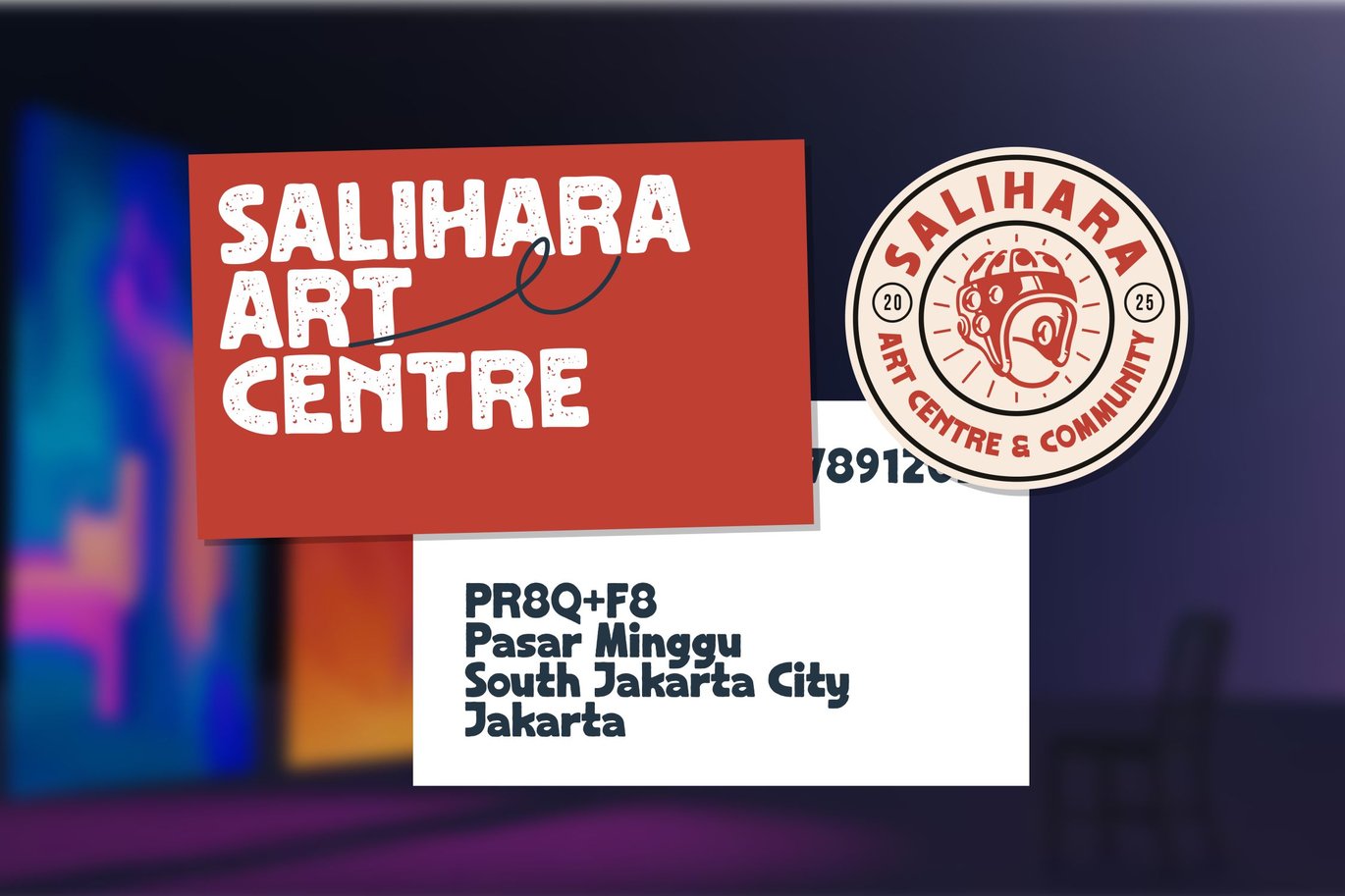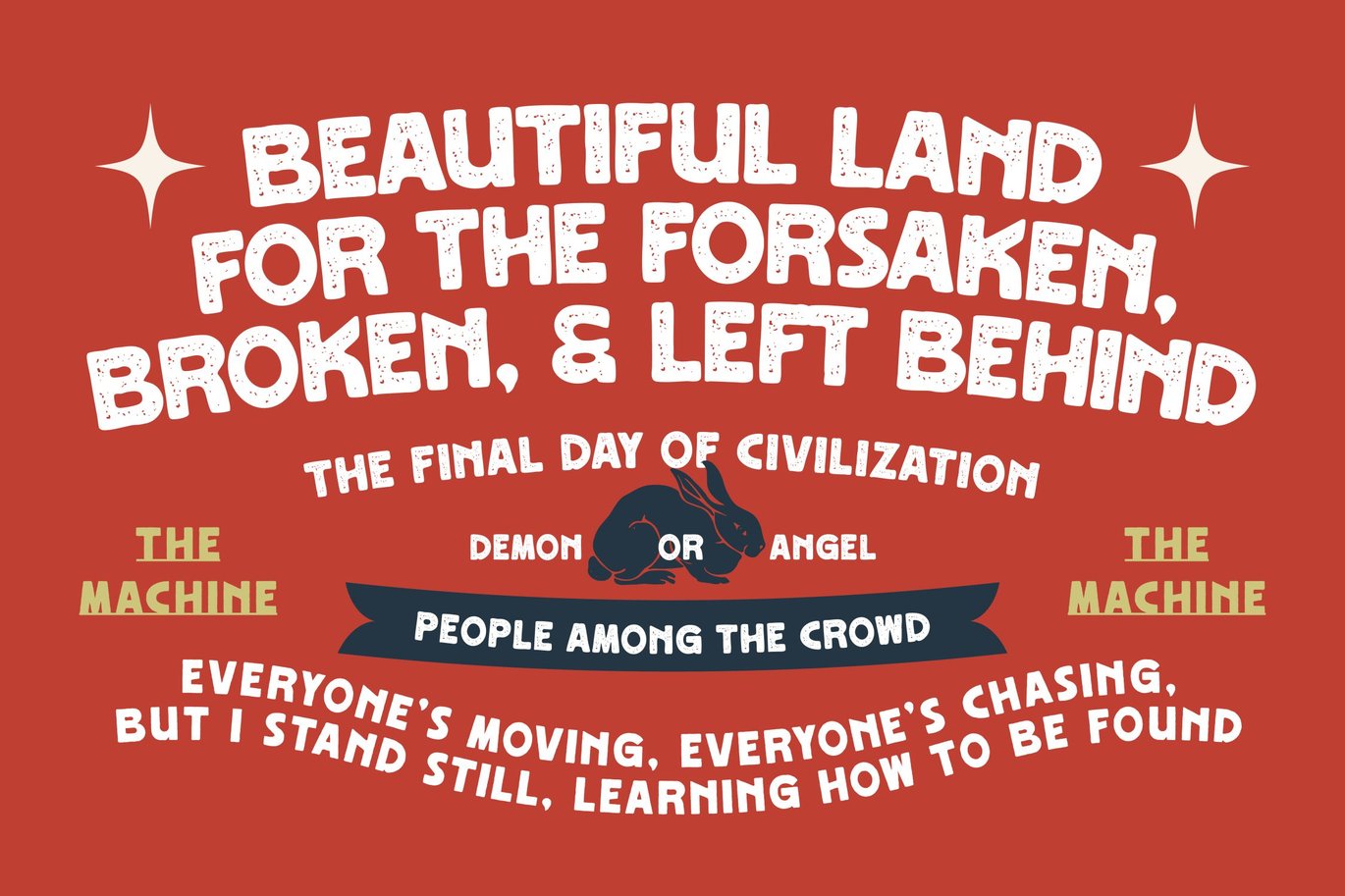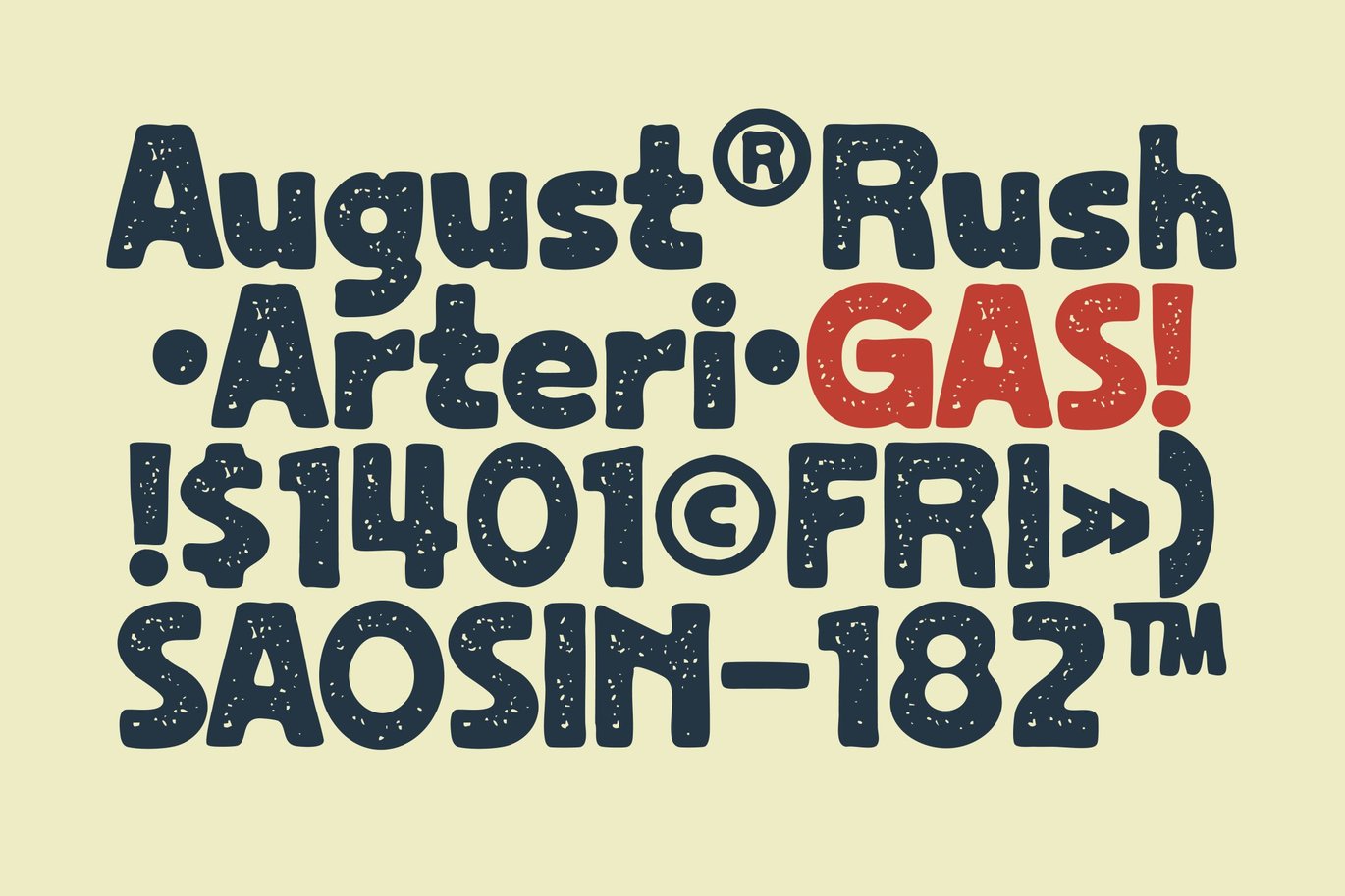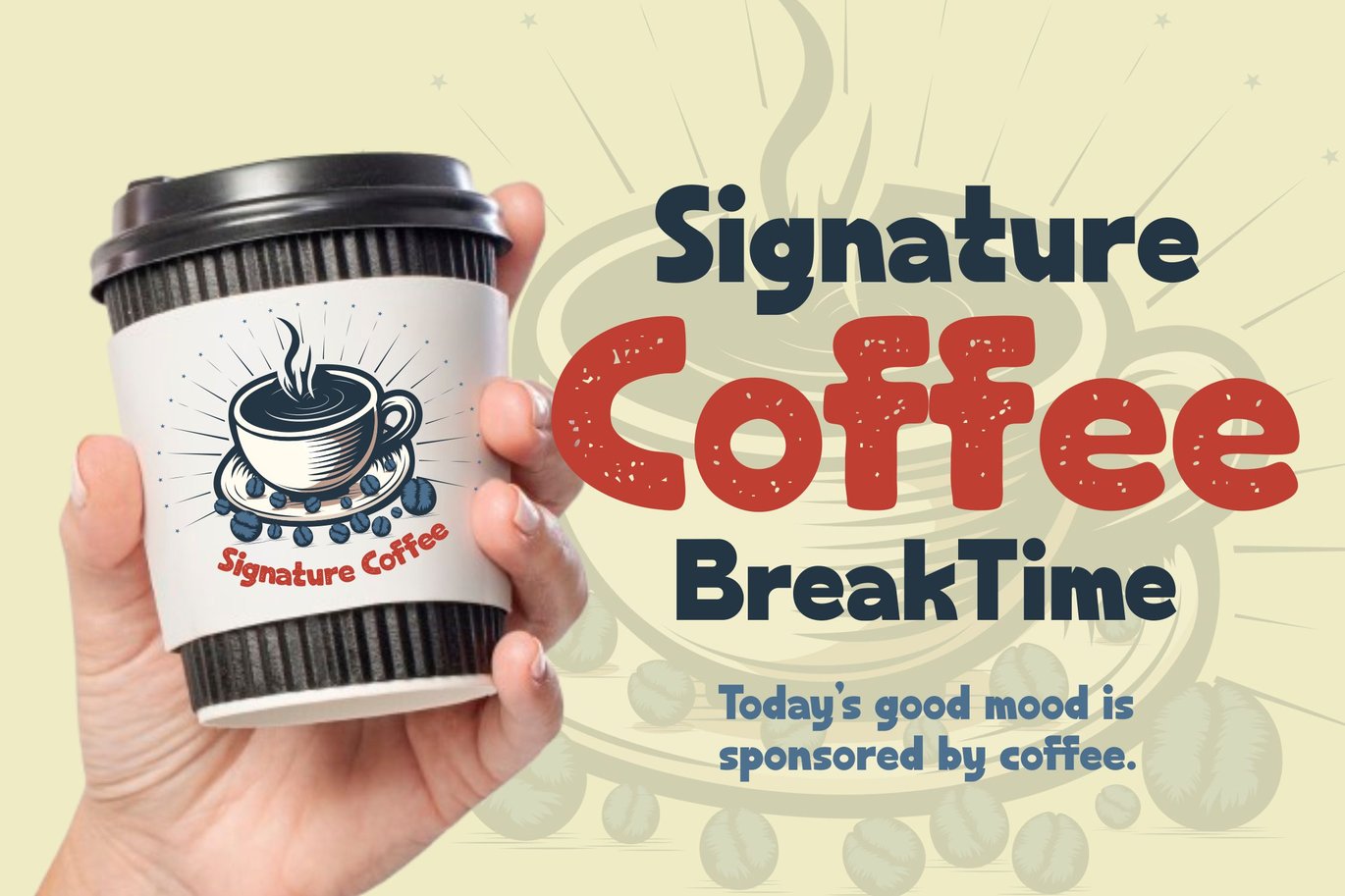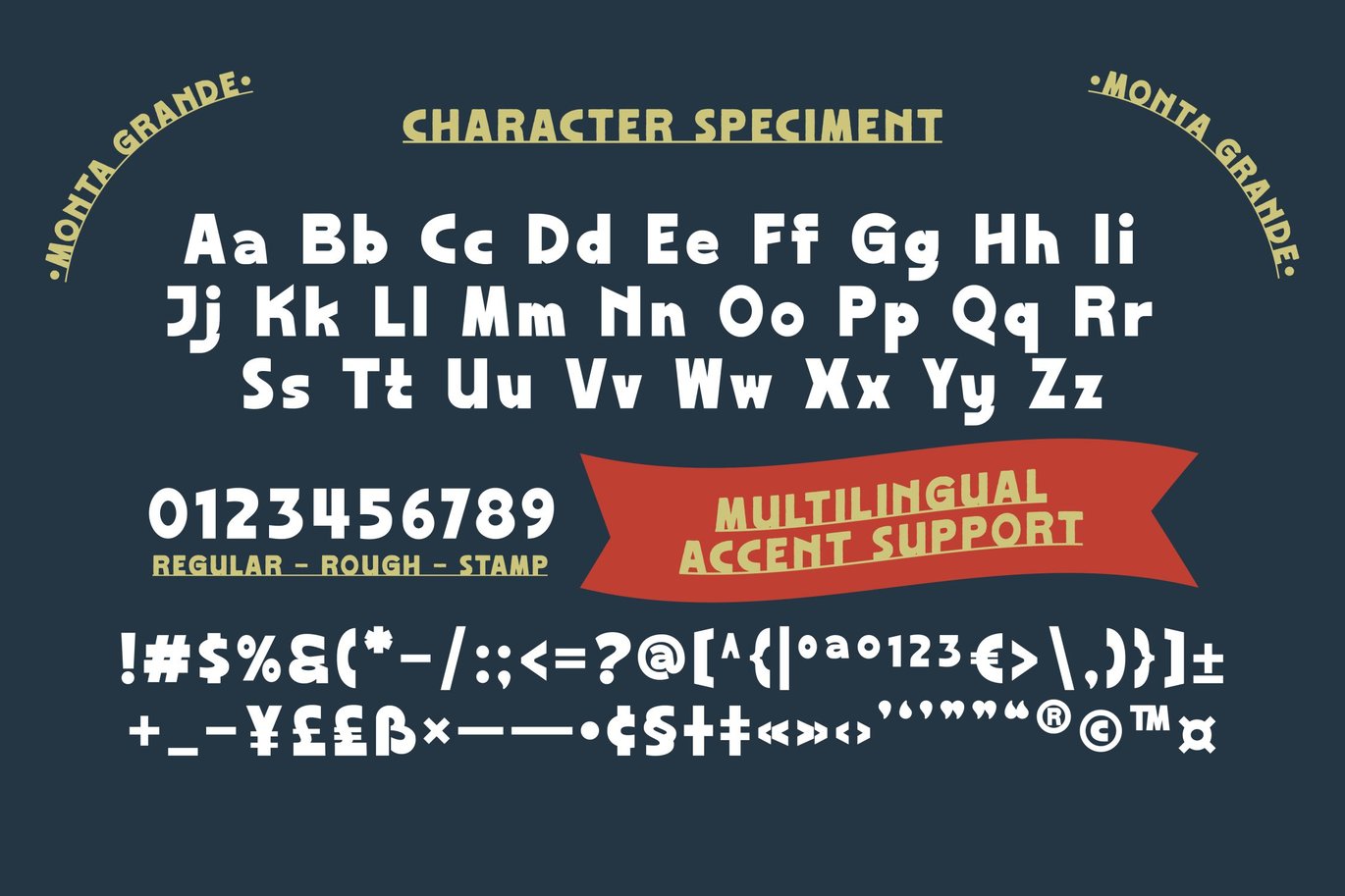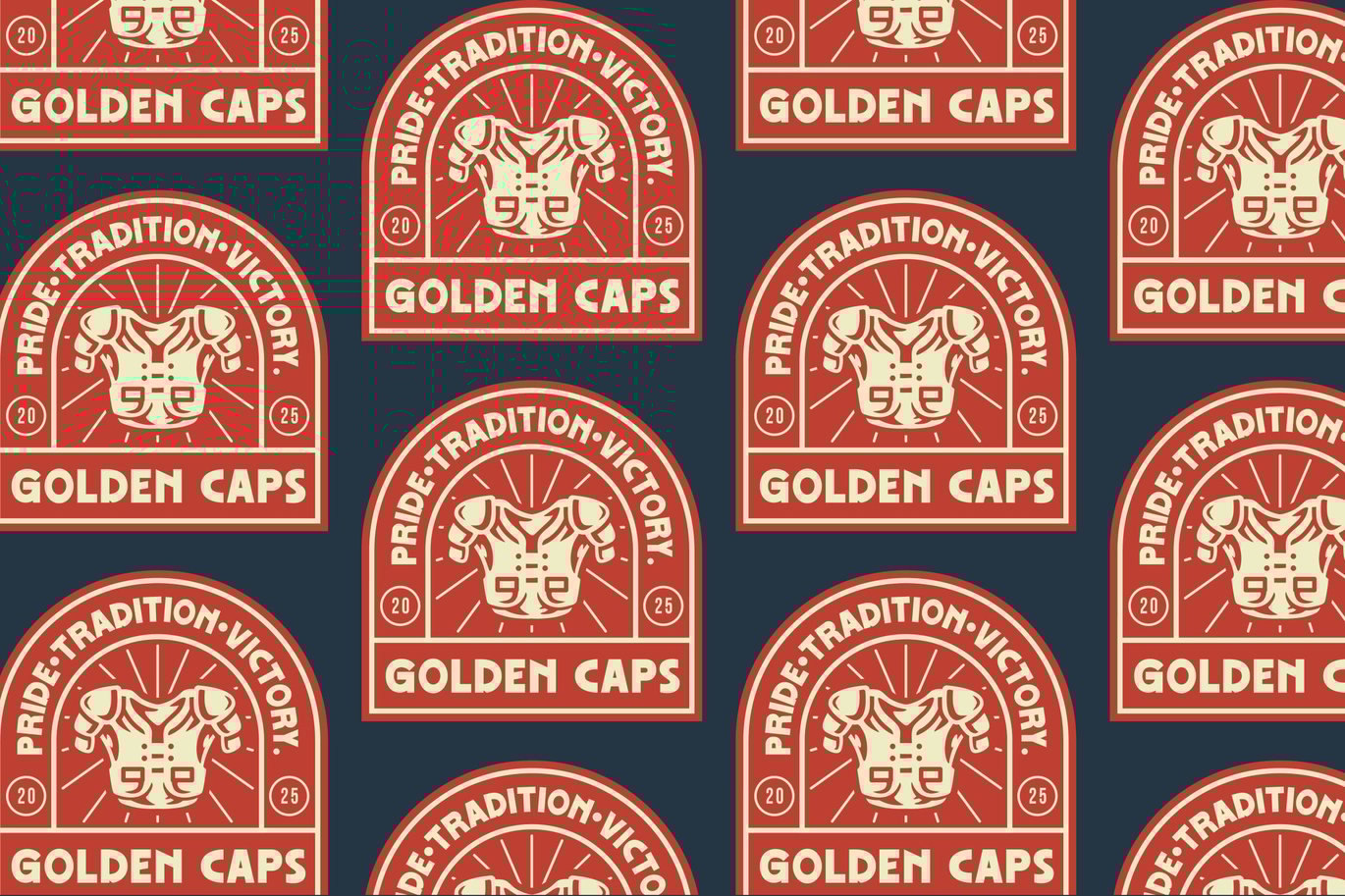
Monta Grande
Monta Grande is a handcrafted sans-serif font that adds bold character, natural imperfections, and timeless authenticity to every design. Its clean yet distinctive shape creates a strong visual impact, while the handcrafted details give a warm, human touch that sets it apart from standard sans-serif styles.
Ideal for impactful logo designs, product packaging, striking quotes, editorial layouts, posters, or any display text that needs to stand out confidently.
Monta Grande features three unique styles: Regular, Rough, and Stamp with an authentic letterpress texture,
allowing you to select the perfect mood and level of grit for your project.